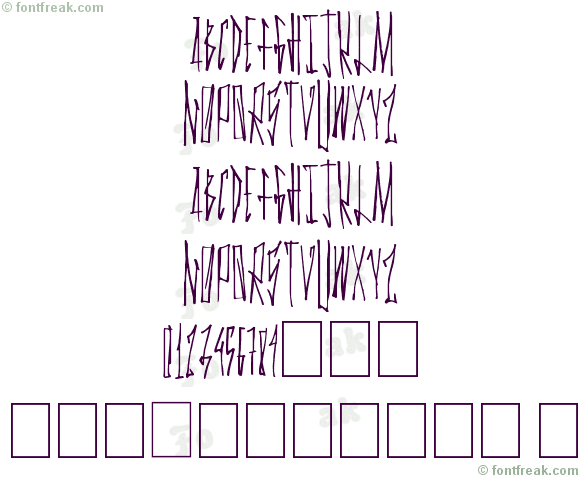
GanstaWalk
About GanstaWalk
GanstaWalk is a distinctive display font designed by XEROGRAPHER FONTS, characterized by its unique and edgy handwritten style. This font stands out with its irregular stroke weight and playful contrasts, which evoke a sense of spontaneity and creativity. The letters are crafted with a dynamic flow, showcasing a mix of sharp angles and rounded edges that capture the essence of street art and urban culture. The spacing between characters is intentionally varied, adding to the overall organic feel of the typeface.
Ideal for a range of creative projects, GanstaWalk can elevate various applications. It works exceptionally well for movie posters, where its bold and unconventional style can draw attention and convey a sense of excitement. Additionally, this font is perfect for album covers in the music industry, especially for genres that embrace a rebellious spirit. The unique aesthetic also makes it suitable for restaurant menus, particularly for establishments aiming to project a trendy or alternative vibe. Graphic designers will find GanstaWalk an invaluable asset for branding materials, as it adds a touch of personality and flair.
What sets GanstaWalk apart is its ability to convey a narrative through its design. The font's energetic and spirited character resonates with users looking to make a bold statement. For anyone interested in exploring this unique typeface, a GanstaWalk font free download is available, allowing you to harness its creative potential for your next project.